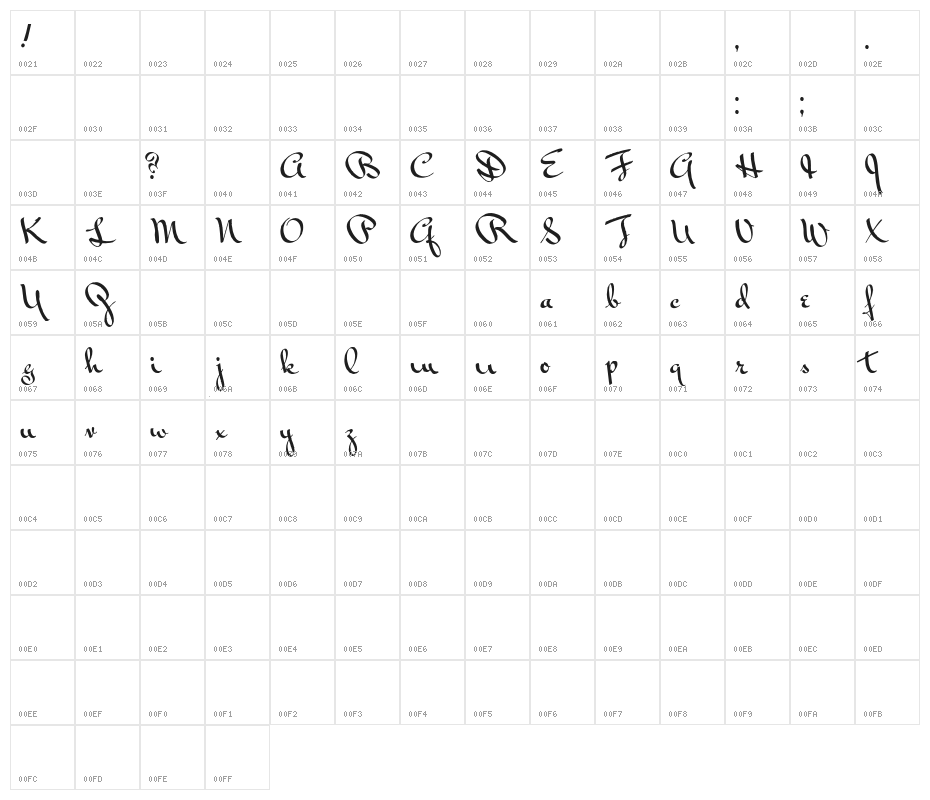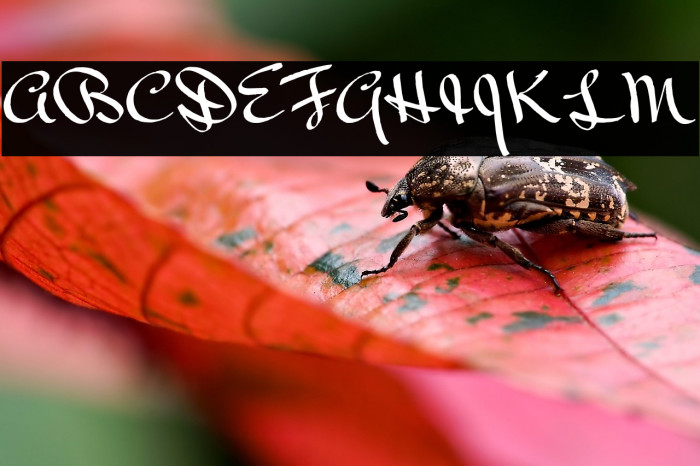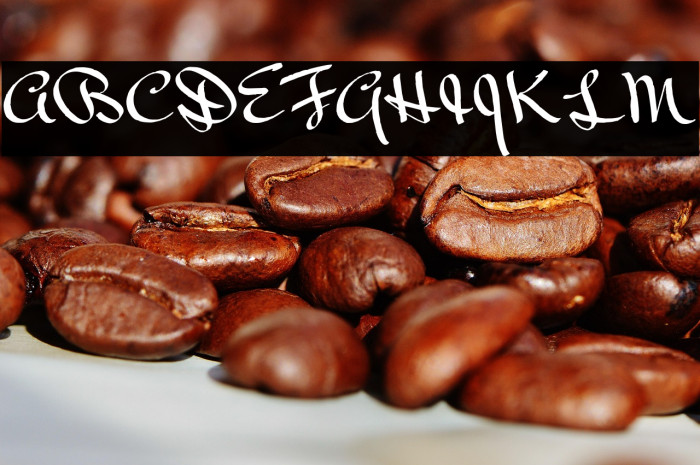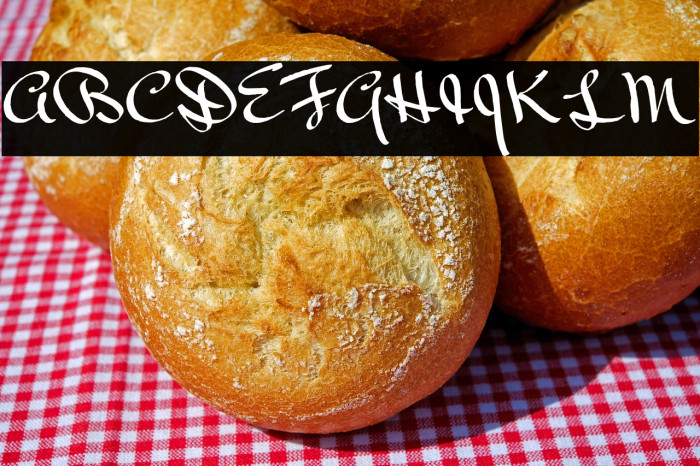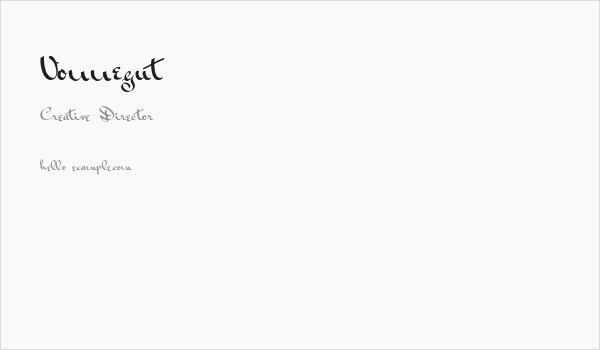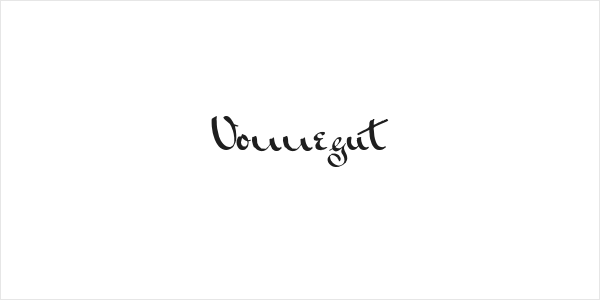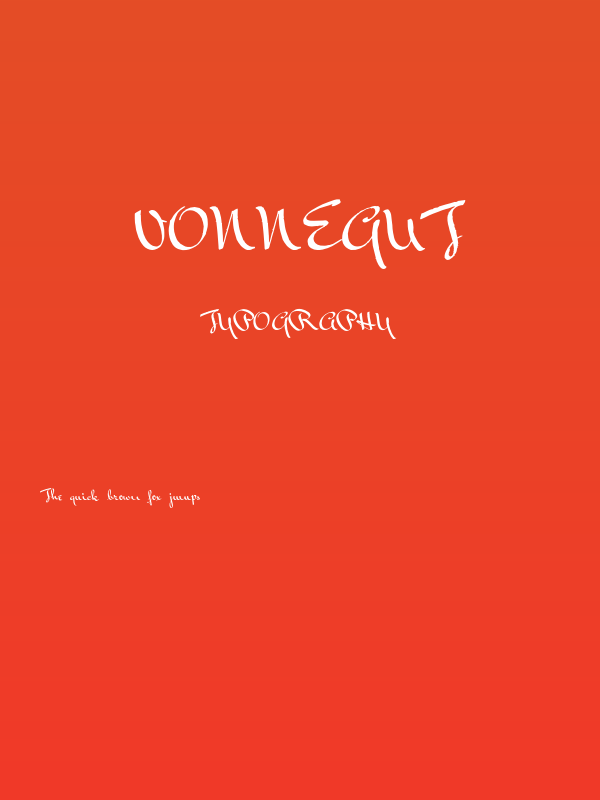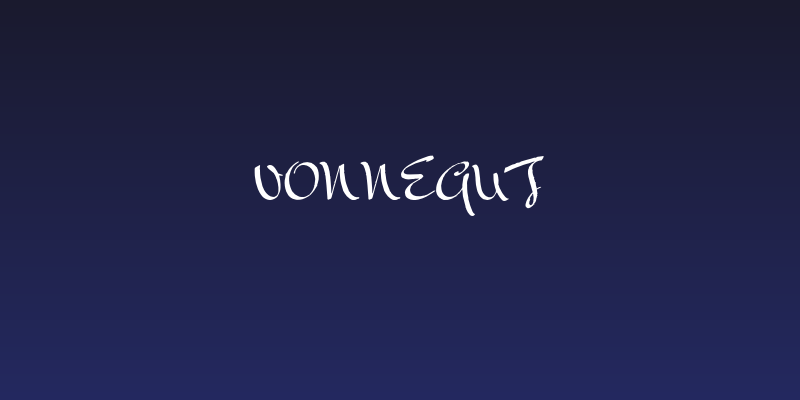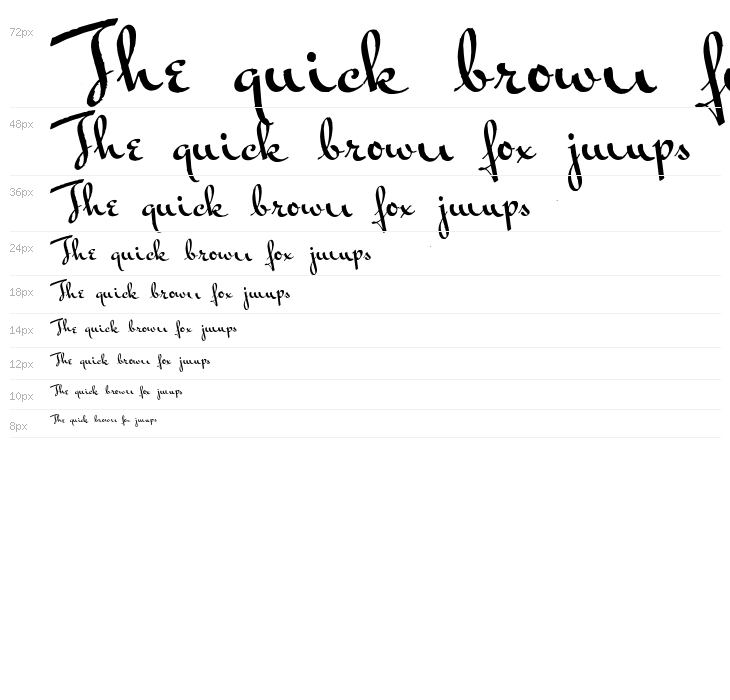
Vonnegut Font
Vonnegut Description
This font features a dynamic and flowing script style, characterized by its elegant and cursive letterforms. The uppercase letters exhibit a graceful, sweeping motion with a slight slant, while the lowercase letters maintain a consistent fluidity, enhancing the overall aesthetic. The strokes are moderately thick, providing a balanced contrast that adds to the font's legibility and charm. The special characters, such as the exclamation mark and comma, are designed with the same attention to detail, ensuring a cohesive look across all elements. This font exudes a sense of sophistication and creativity, making it suitable for a variety of design applications.